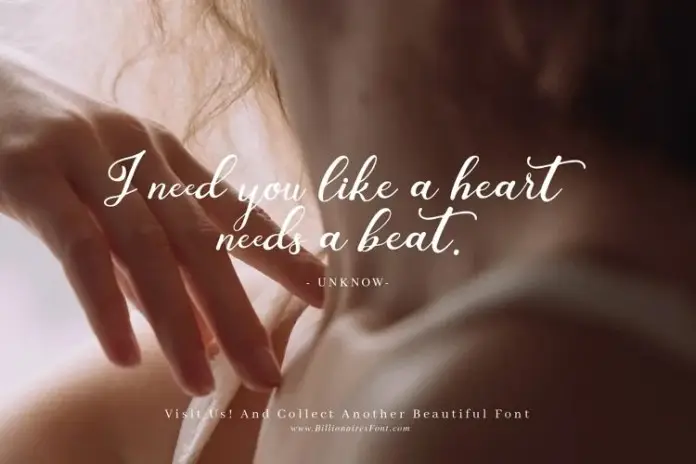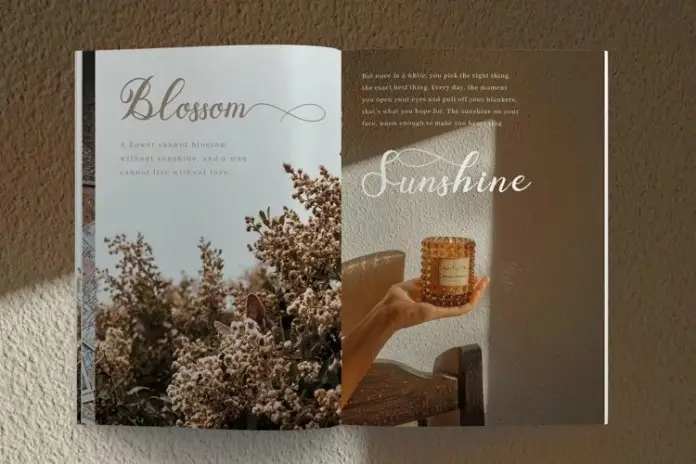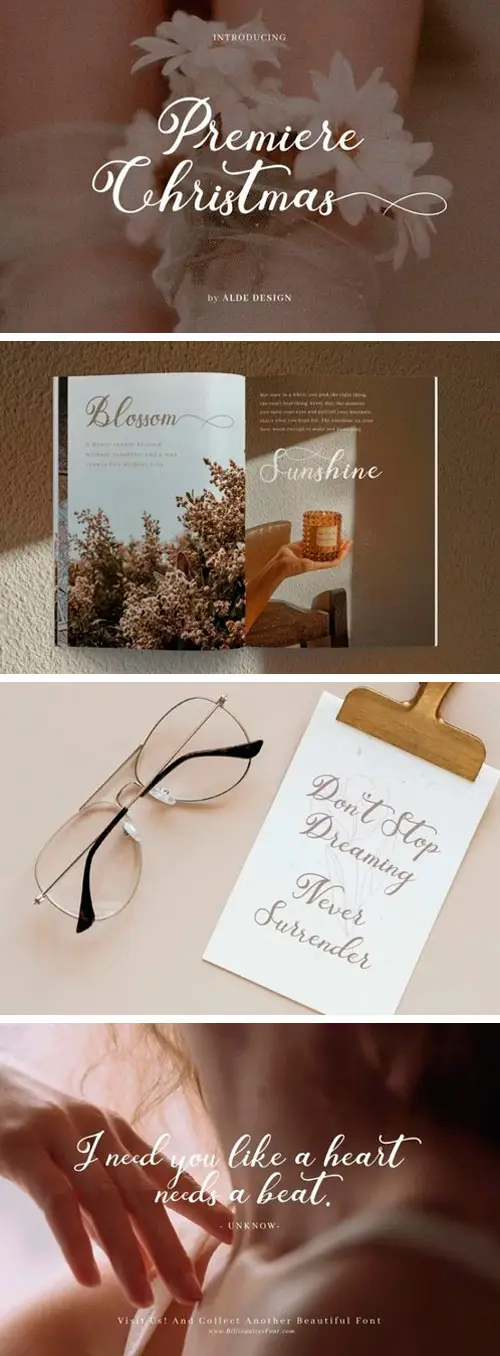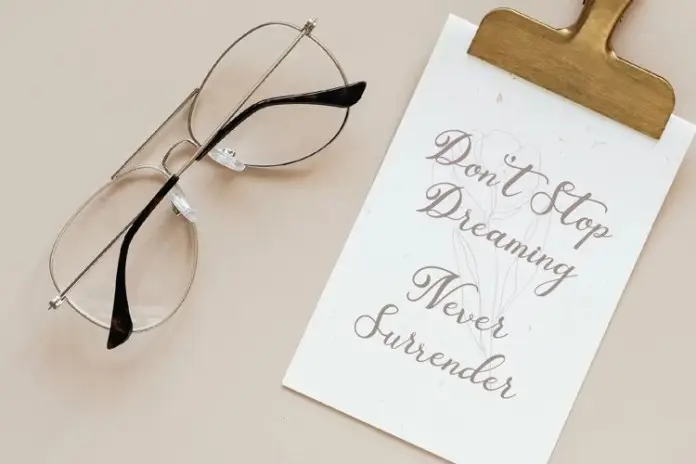
Premiere Christmas Calligraphy Font
Introducing the Premiere Christmas Calligraphy Font, a beautifully crafted typeface that captures the spirit of the holiday season. This font features elegant curves and intricate details, making it perfect for festive projects, invitations, and seasonal branding.
• Stylish calligraphy design
• Style: Calligraphy
Utilize this font for holiday cards, social media graphics, and any project that requires a touch of elegance and festive cheer.